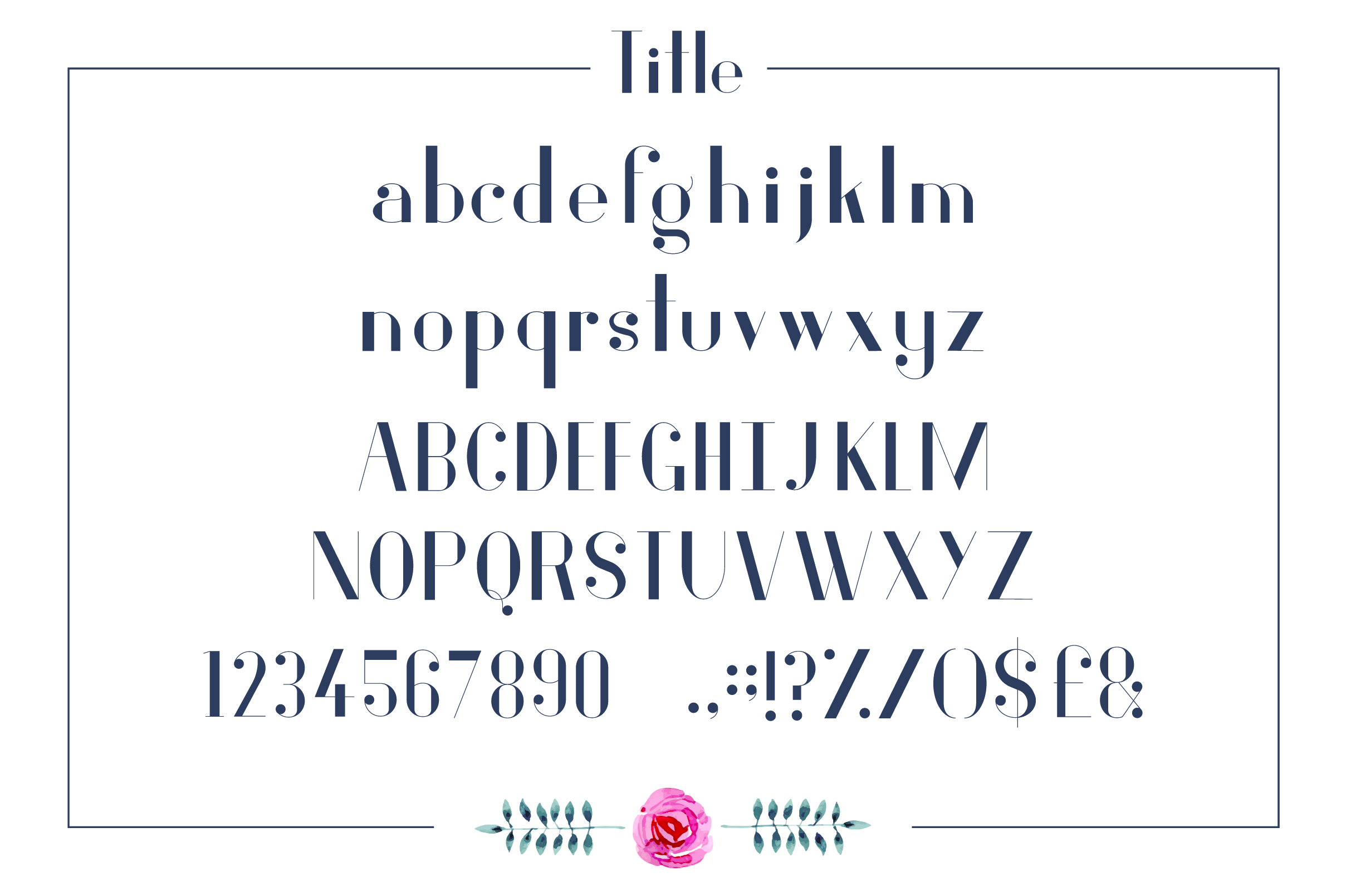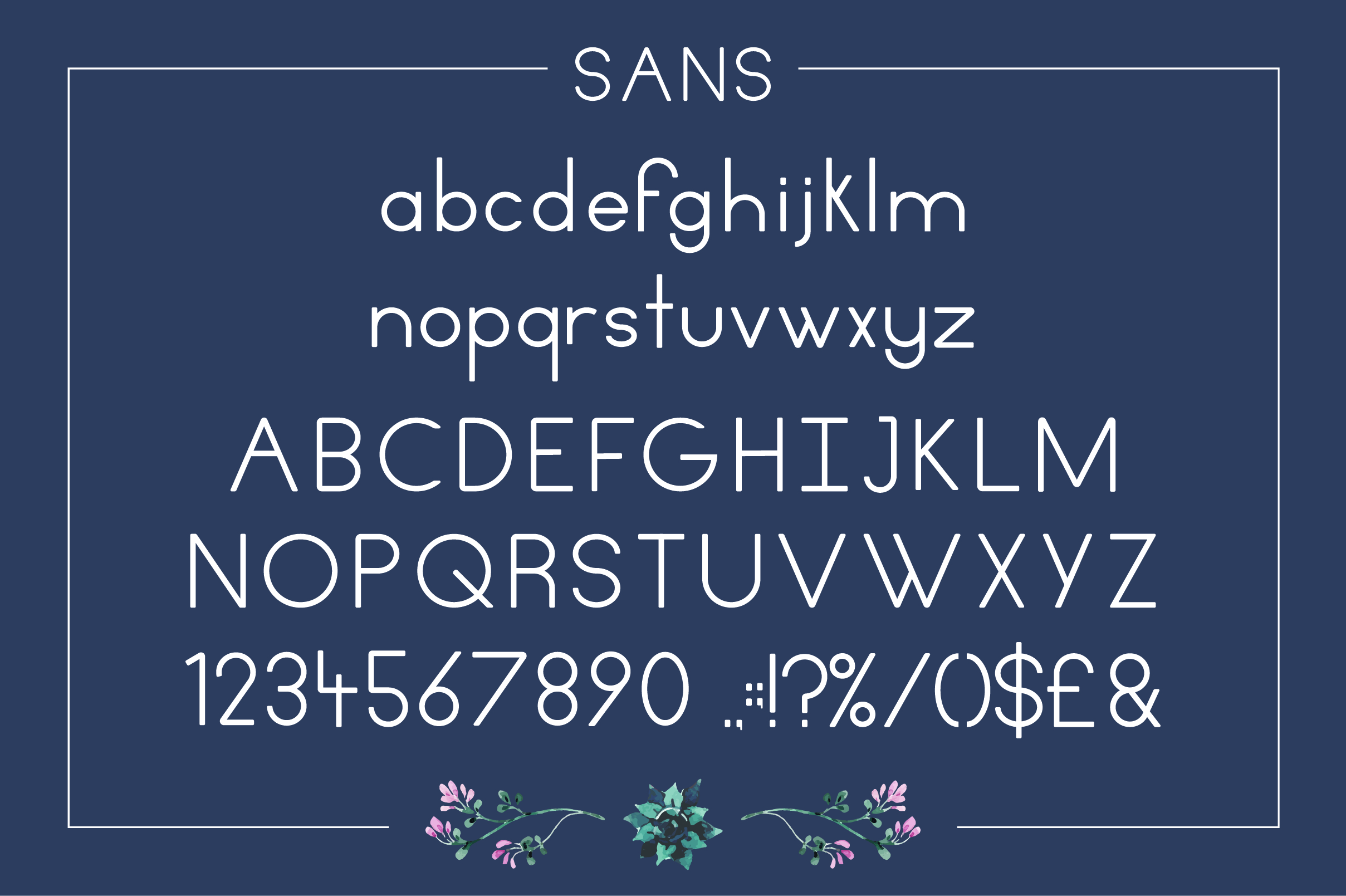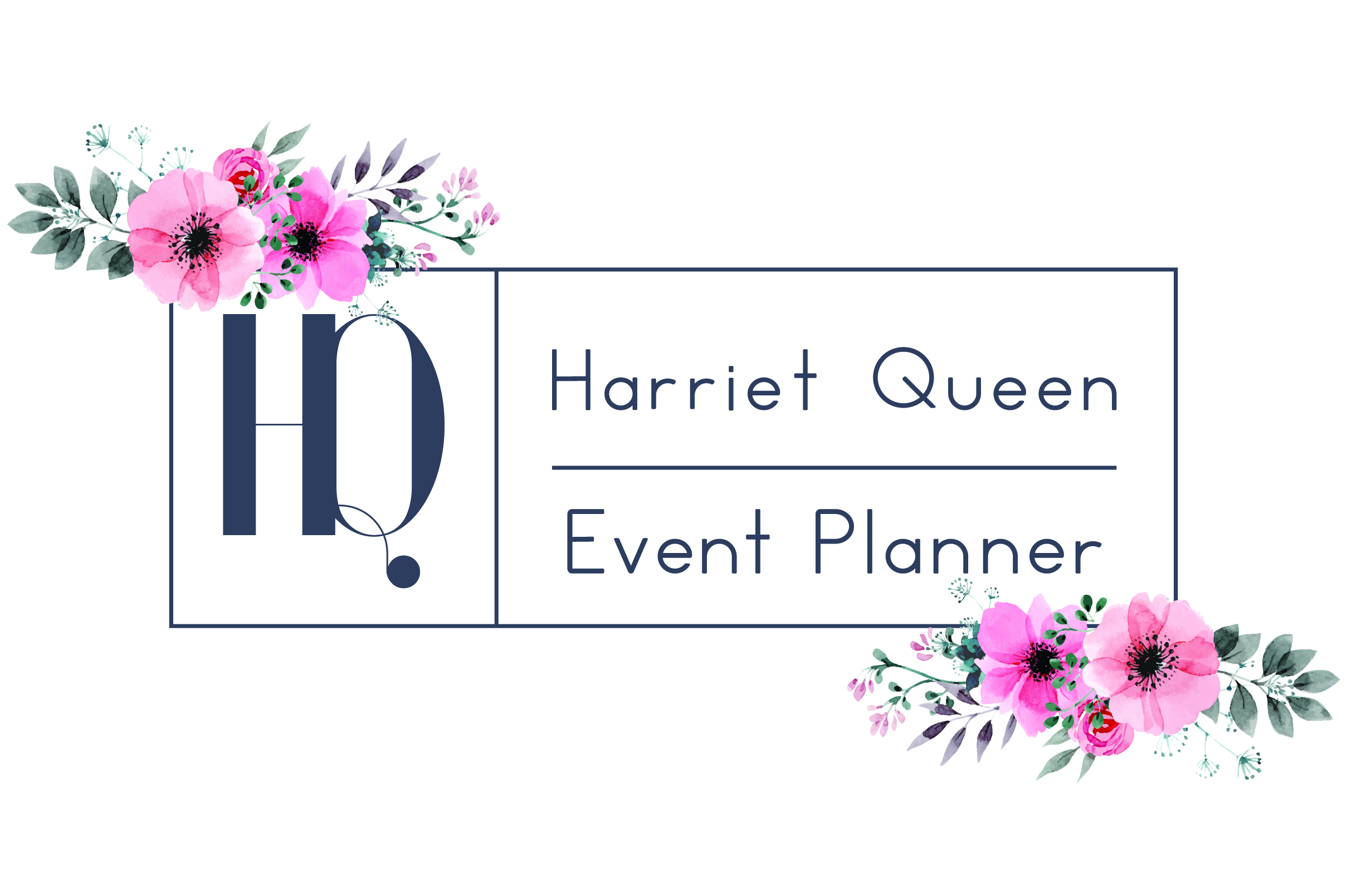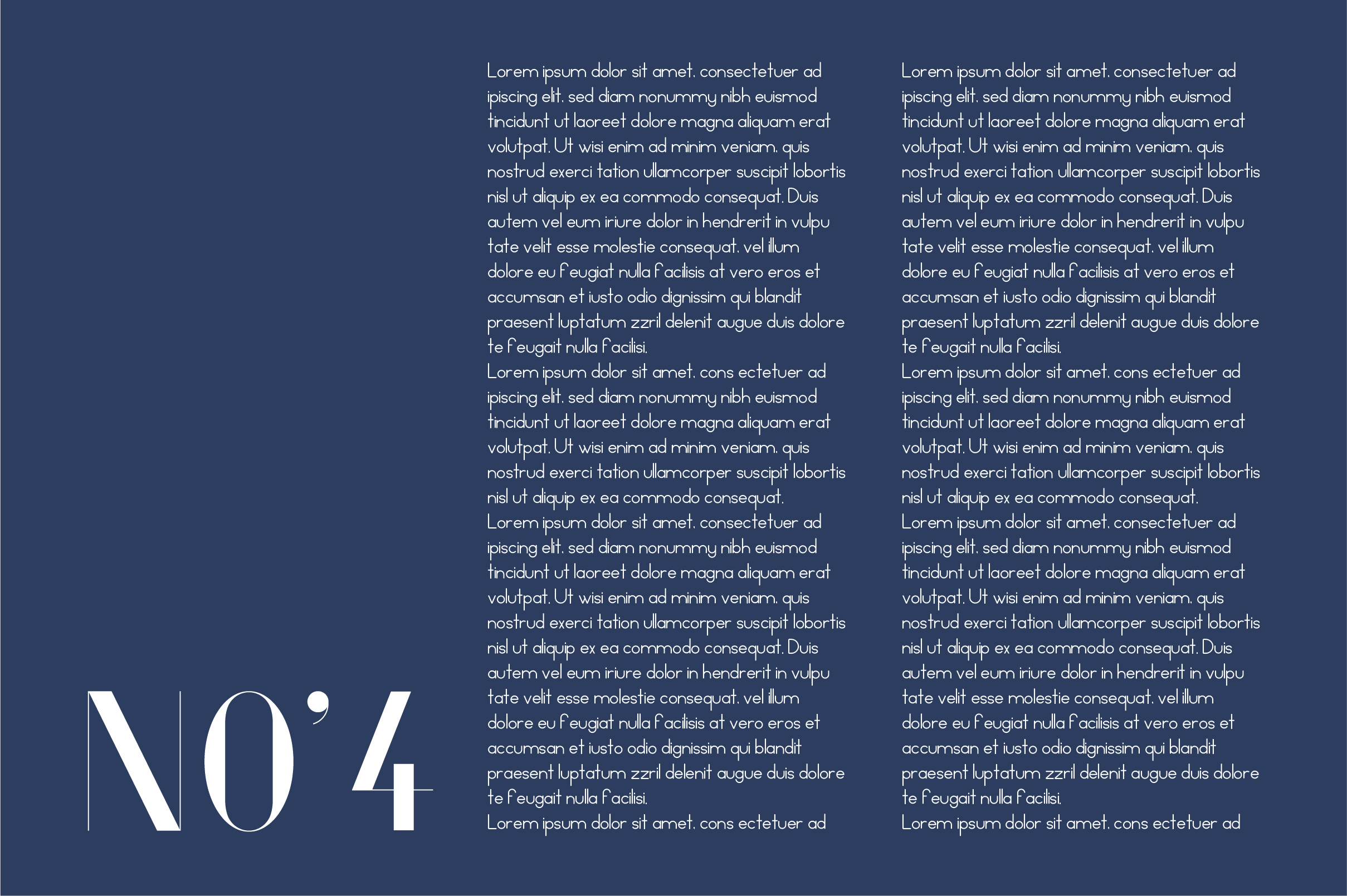
Discover the Elegance of Fiore Font: The Perfect Pairing for Designers and Crafters
When it comes to selecting the perfect font for your design project, the choices can be overwhelming. However, if you’re looking for a versatile and elegant solution, look no further than the Fiore Font. This exceptional type pairing consists of two complementary fonts that work in harmony to elevate your designs, whether you’re creating wedding stationery, monogram logos, or any other visual project.
The Fiore Font Pairing: A Match Made in Design Heaven
The Fiore Font pairing is unique in its ability to offer both a stunning title font and a clean sans font. The title font is specifically designed for display and headings, boasting elegant lines and a sophisticated feel. On the other hand, the sans font is perfect for sub-headings and body-copy, providing clarity and readability. Together, they create a beautiful contrast that enhances the visual appeal of any design.
Why Fiore Font Stands Out
So, what makes Fiore Font stand out from the numerous font pairings available? Here are a few reasons why designers and crafters are falling in love with Fiore:
- Versatility: The Fiore Font pairing is incredibly versatile, making it suitable for a wide range of design projects. From wedding invitations and stationery to monogram logos and branding materials, Fiore Font adapts seamlessly.
- Elegance: The title font in the Fiore pairing exudes elegance and sophistication, perfect for creating a luxurious feel in your designs. Meanwhile, the sans font offers a modern and clean look that complements the title font beautifully.
- Readability: One of the key challenges in design is ensuring that your text is readable without sacrificing style. The Fiore Font pairing excels in this area, with the sans font providing excellent readability for body text and sub-headings.
Applications of Fiore Font
The applications of Fiore Font are vast and varied. Here are some popular uses for this versatile font pairing:
- Wedding Stationery: Create stunning wedding invitations, programs, and place cards with the Fiore Font pairing. The contrast between the elegant title font and the clean sans font works particularly well for wedding designs.
- Monogram Logos: The Fiore Font is ideal for crafting beautiful monogram logos. The title font can be used to create a sophisticated and eye-catching monogram, while the sans font can be used for taglines or descriptions.
- Branding and Packaging: For businesses looking for a font pairing that conveys elegance and professionalism, Fiore Font is an excellent choice. It’s suitable for logos, product labels, and packaging designs.
Tips for Using Fiore Font
To make the most of the Fiore Font pairing, consider the following tips:
- Experiment with Sizes: Play around with different sizes to emphasize the contrast between the title and sans fonts. This will add depth and interest to your designs.
- Color Selection: Choose colors that complement both fonts. Neutral colors like black, white, and pastels work well with Fiore Font, but feel free to experiment with other palettes to match your brand or theme.
- Pair with Images: The Fiore Font pairing looks great when paired with elegant images or watercolor designs. This combination enhances the overall aesthetic and creates a cohesive look.
| Font Name | Fiore Font |
| Author | Mike Hill |
In conclusion, the Fiore Font pairing offers designers and crafters a versatile, elegant, and highly readable solution for their design projects. Whether you’re creating wedding stationery, monogram logos, or branding materials, Fiore Font is an excellent choice. Its unique combination of a sophisticated title font and a clean sans font ensures that your designs will stand out. So, why settle for ordinary when you can create something extraordinary with Fiore Font?